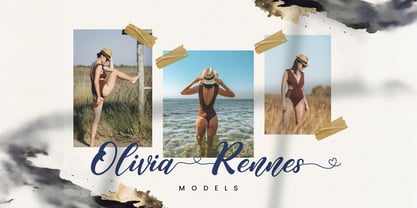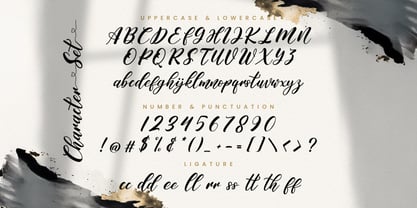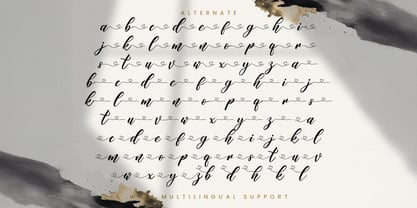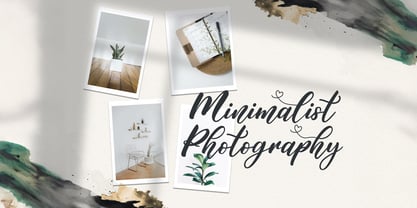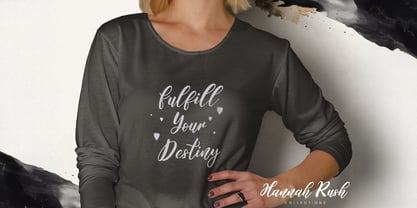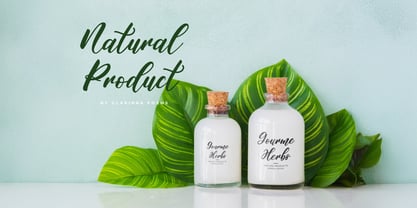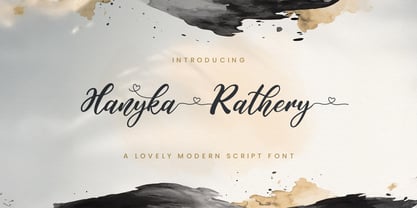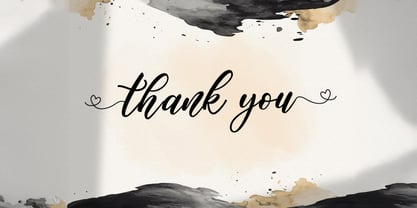
Hanyka Rathery
by Stringlabs Creative Studio
The Hanyka Rathery Font Family was designed by Virgiawan Listanto and published by Stringlabs Creative Studio. Hanyka Rathery contains 1 styles. More about this family
Hanyka Rathery is a beautifully crafted script font that radiates elegance and charm. With its delicate, fluid letterforms and soft, flowing curves, this font adds a warm, personal touch to any design. Its graceful style brings a sense of sophistication and affection, making it ideal for both modern and classic designs that require a bit of loveliness and elegance.
Designers: Virgiawan Listanto
Foundry: Stringlabs Creative Studio